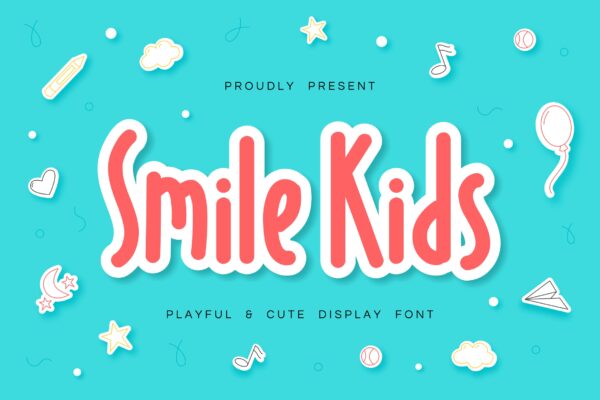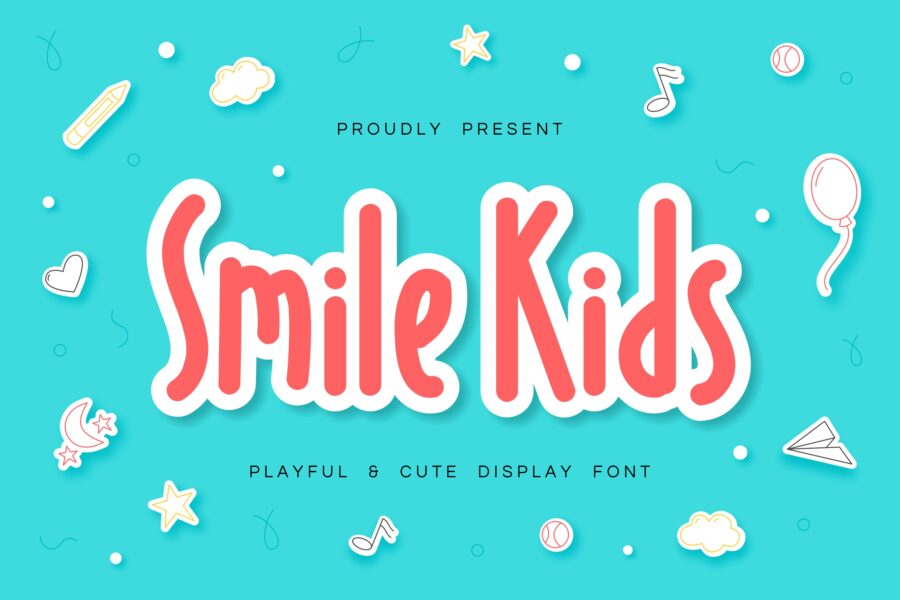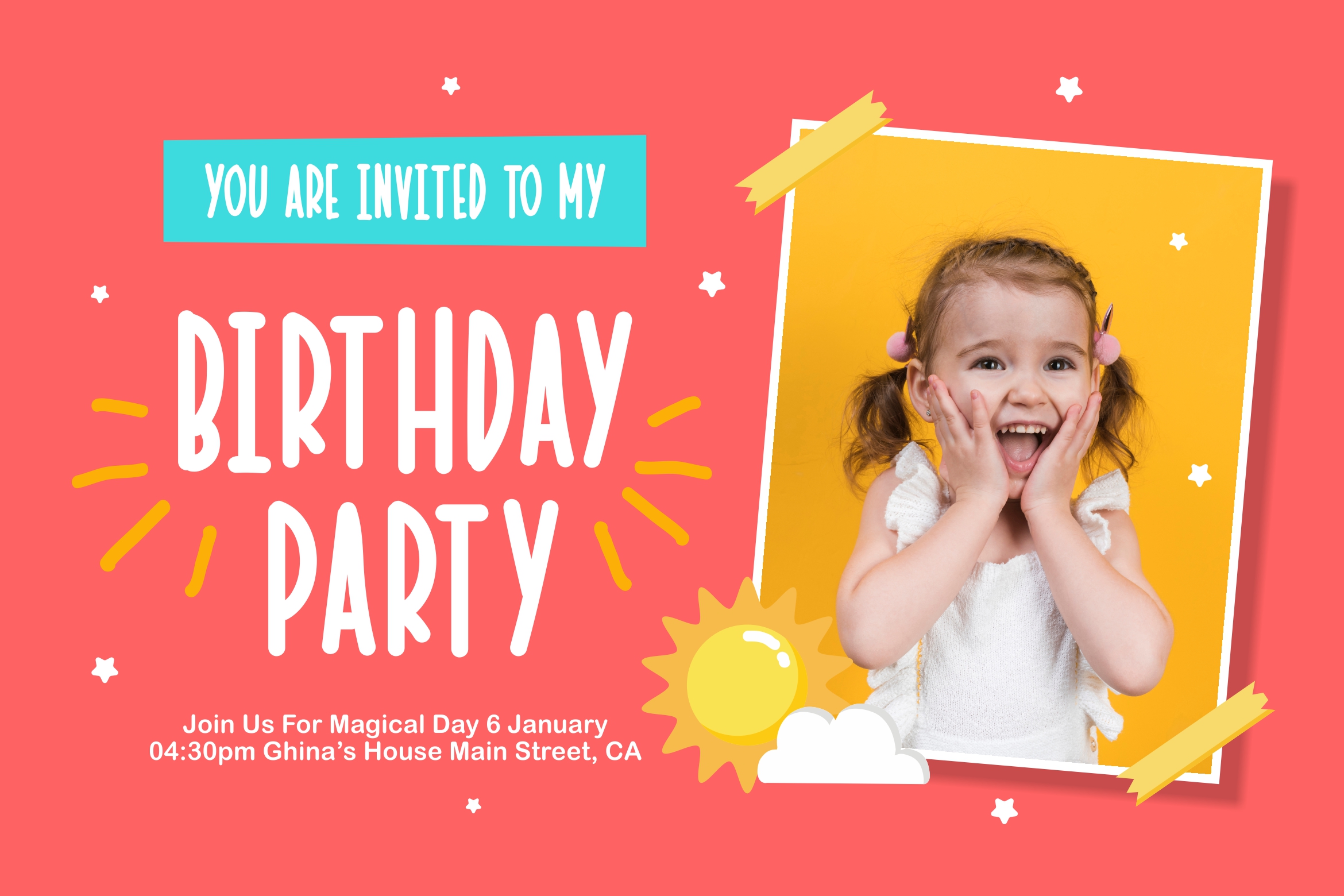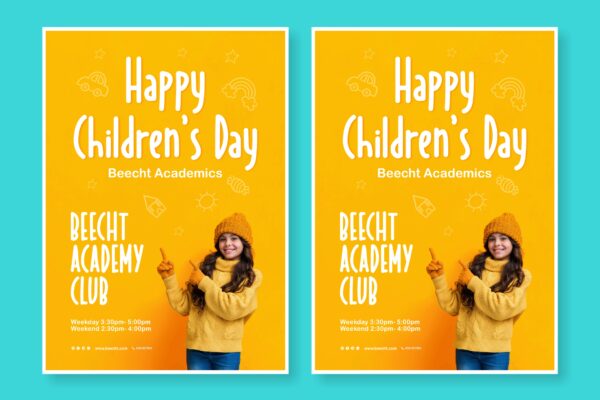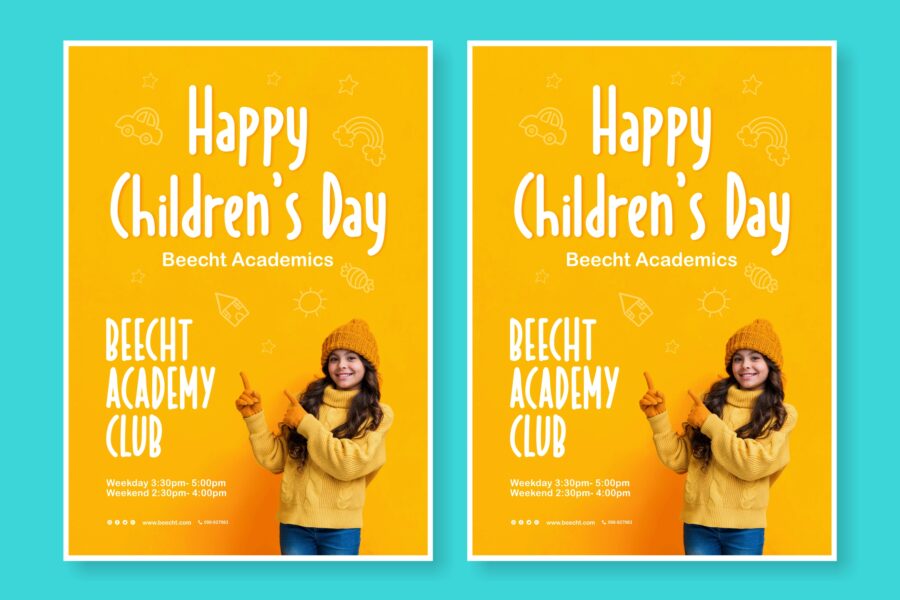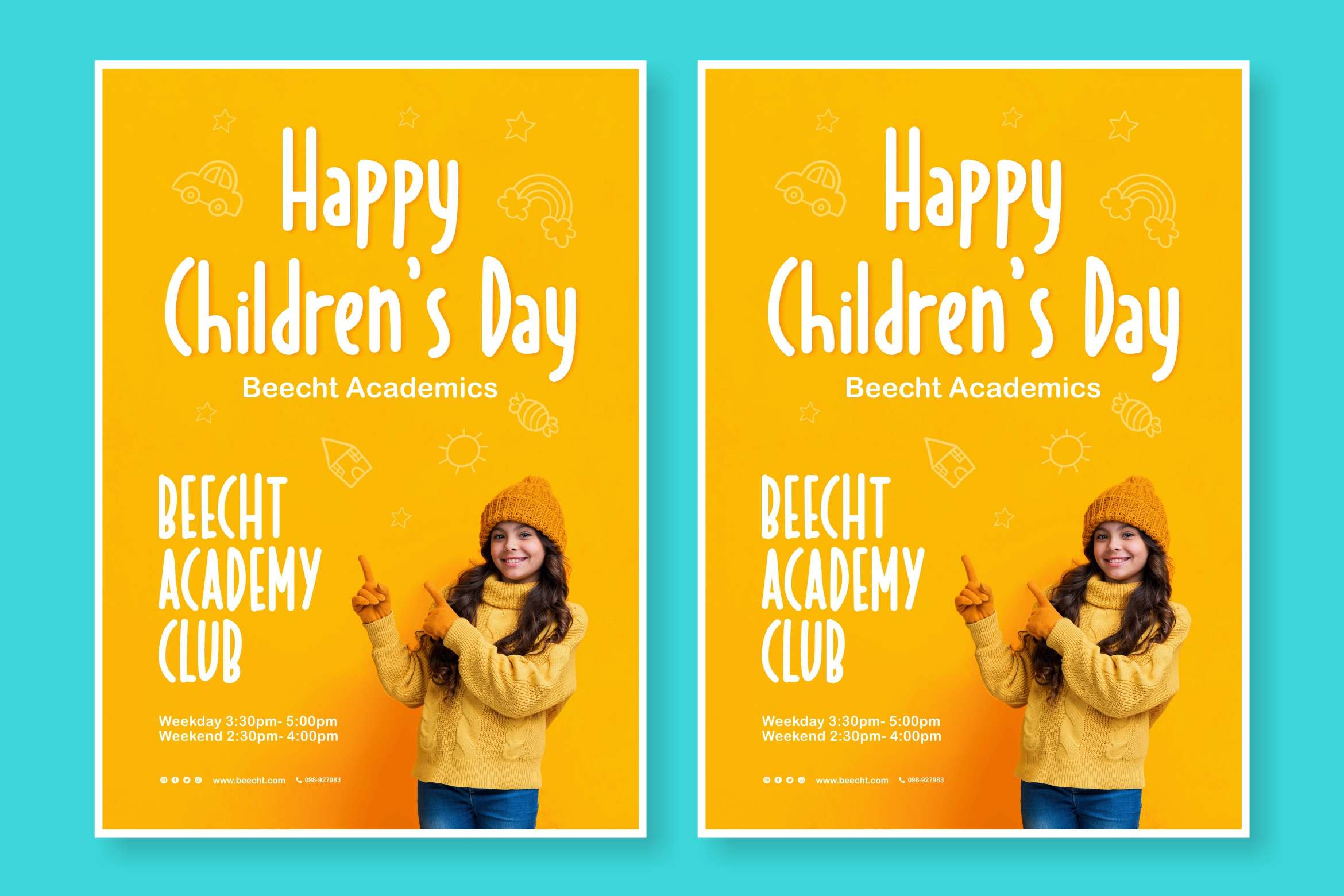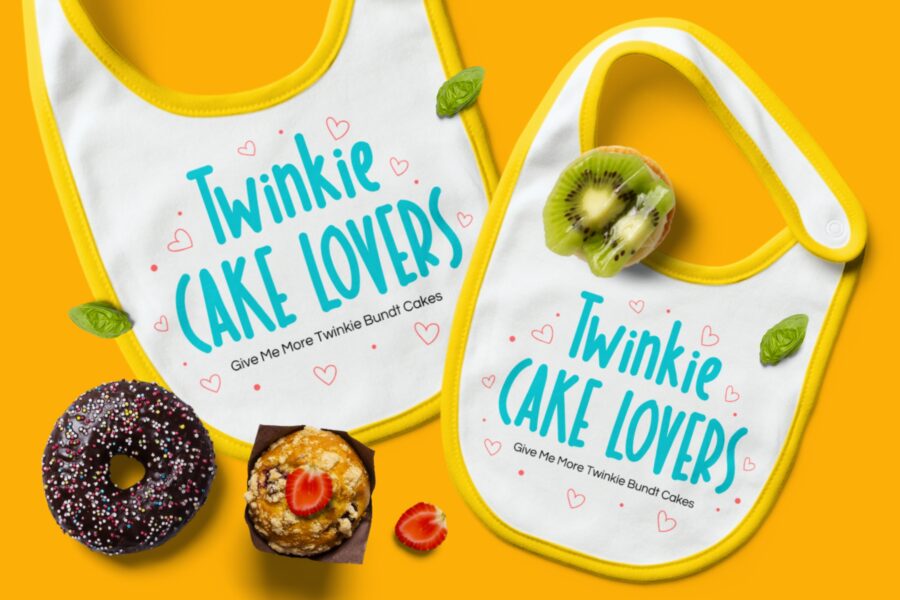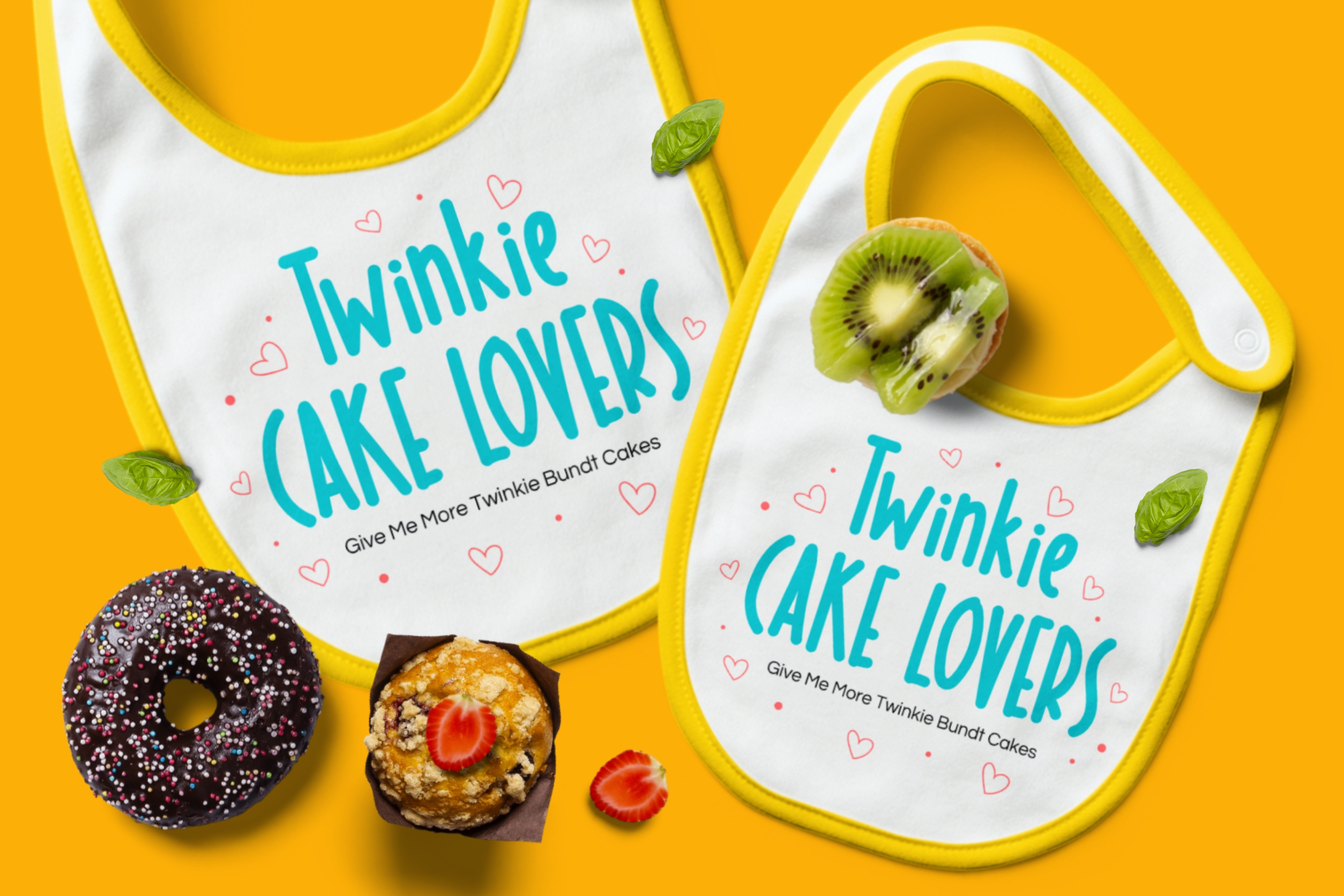
Smile Kids is a cheerful and energetic display font designed to bring joy and playfulness to any design project. With its rounded corners, tall proportions, and quirky letterforms, this font captures the spirit of childhood fun and creativity. It’s an ideal choice for birthday invitations, children’s books, educational posters, apparel, and toy packaging.
Equipped with multilingual characters, punctuation, and numbers, Smile Kids offers great flexibility for global use. Whether you’re designing for a school event, a daycare brand, or a kid’s party theme, this font adds a friendly, bubbly personality that kids and parents alike will love.
Smile kids